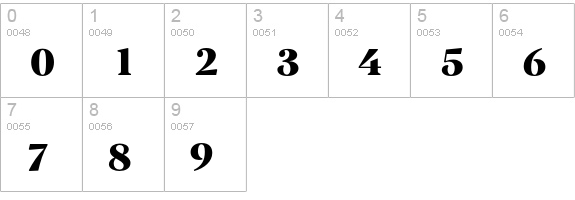
PFRegalTextPro-Black is a maximum-weight, dramatic variant in the PFRegalTextPro typeface family \xE2\x80\x94 well suited to maximum-impact headlines, posters, and packaging.
PFRegalTextPro-Black is a versatile and elegant font that exudes a sense of sophistication and luxury. Its bold and distinct letterforms make a powerful statement, making it perfect for headings, titles, and other prominent text elements. The sharp serifs and clean lines of PFRegalTextPro-Black add a touch of refinement to any design project. The best part is that PFRegalTextPro-Black is available for free download at FontsMarket.com. This means you can elevate your designs with this high-quality font without having to spend a dime. Whether you're working on a branding project, editorial layout, or any other design endeavor, PFRegalTextPro-Black is sure to make a lasting impression. Download it today and add a touch of sophistication to your work!